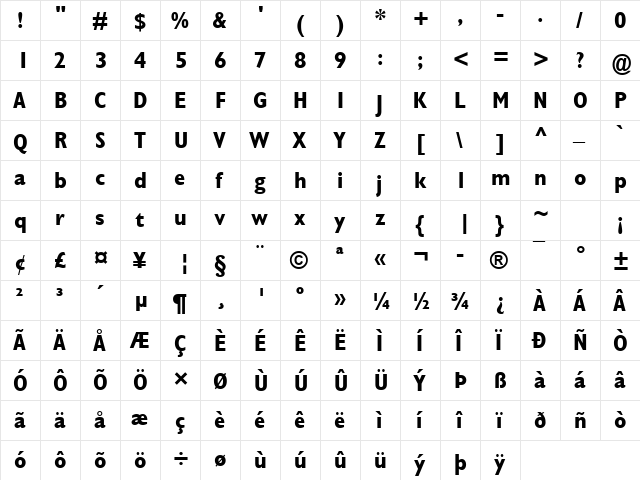
Gill Sans Condensed Bold
Design Context for Gill Sans Condensed Typeface
Gill Sans Condensed is a composed and adaptable typeface that performs quietly and consistently across a wide range of design contexts. The heavy weight commands attention and anchors typographic hierarchies. Its narrow stance lets it pack a punch even in space-constrained designs.